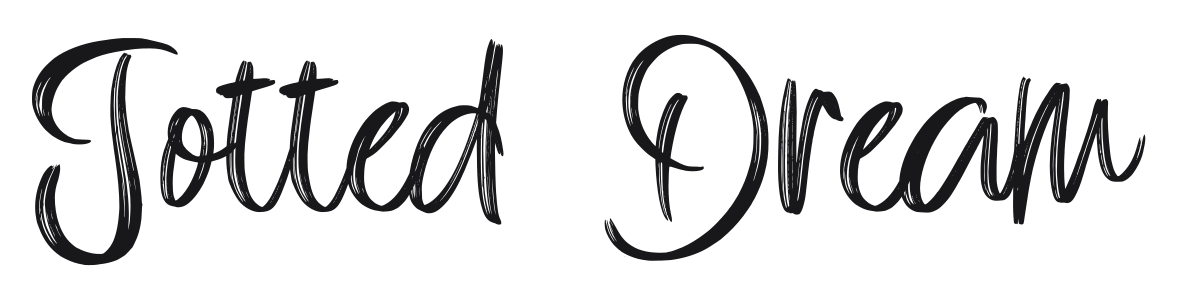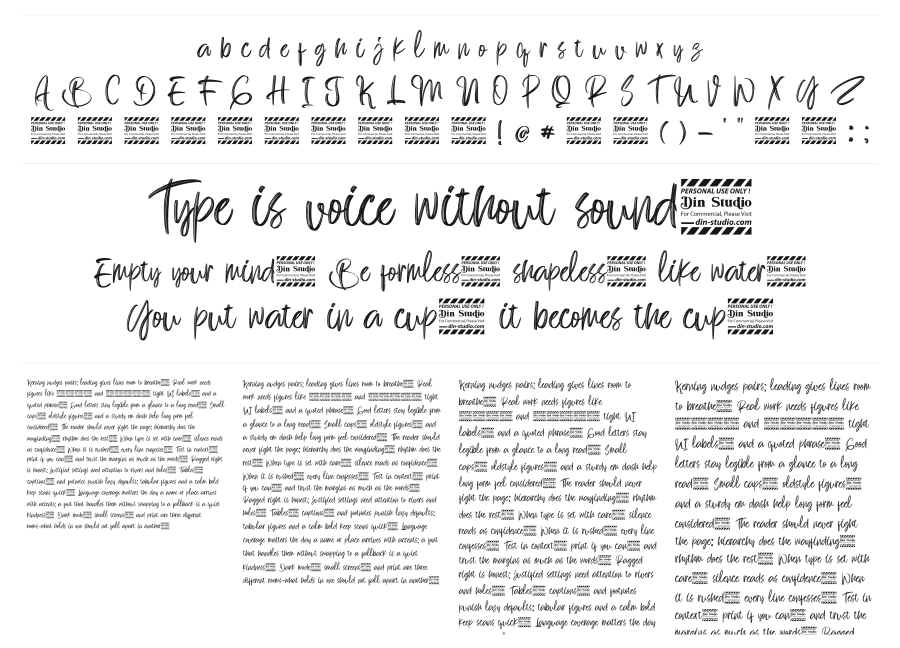
Jotted Dream
Jotted Dream is a casual brush script from Nathatype with loose, flowing connections and visible bristle texture that sells the hand-painted look. Generous looping strokes and lively rhythm give it a spontaneous energy that works well at large sizes. Strong for logo work, poster headlines, and anything that needs a handcrafted, approachable feel.